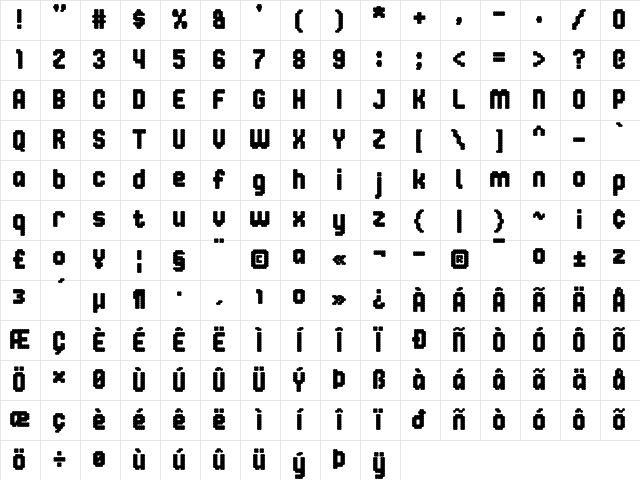
Complete Notacumulus Regular glyph index. Displaying only characters natively supported by Notacumulus Regular font.
Notacumulus is a composed and adaptable typeface that performs quietly and consistently across a wide range of design contexts.